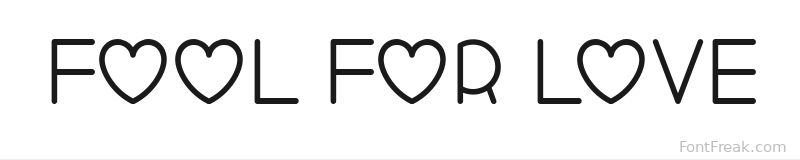
FoolForLove
Fool For Love
About FoolForLove
FoolForLove is a charming display font designed by Misti Hammers, characterized by its playful and whimsical style. This font falls into the decorative category, making it an excellent choice for projects that require a touch of lightheartedness. The design features unique heart-shaped elements integrated into the letterforms, particularly evident in the letters "o," which adds a romantic flair to the overall aesthetic. The stroke weight is consistent, providing a balanced and harmonious look, while the spacing between characters is well-considered to ensure readability without sacrificing style.
The FoolForLove font shines in various applications, making it a versatile choice for designers. It's particularly well-suited for wedding invitations and love letters, where its romantic theme can effectively convey heartfelt sentiments. Additionally, it works beautifully on greeting cards, making it the perfect choice for Valentine's Day or anniversaries. Restaurant menus that aim for a cozy or romantic atmosphere can also benefit from this font, as it adds a unique touch that captures attention. Furthermore, it can be effectively used in social media graphics and marketing materials that target a youthful, fun-loving audience.
Targeted at graphic designers, small business owners, and content creators, FoolForLove offers an approachable yet stylish option for various design needs. Its distinctiveness lies in its ability to evoke joy and affection, making it more than just a typeface; it becomes a part of the storytelling process in visual communication. For those looking to add a playful and romantic flair to their designs, the FoolForLove font free download is an opportunity not to be missed. This font stands out for its unique combination of charm and usability, making it a delightful addition to any typography toolkit.